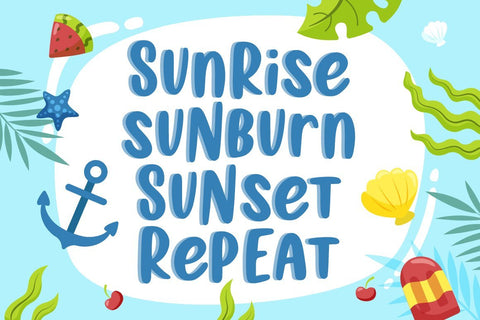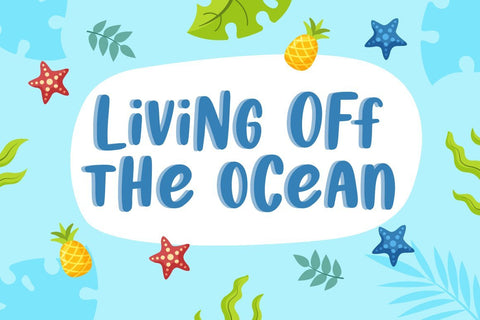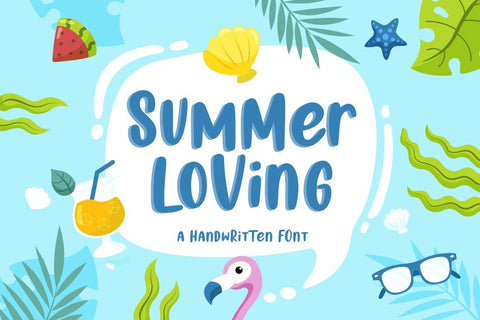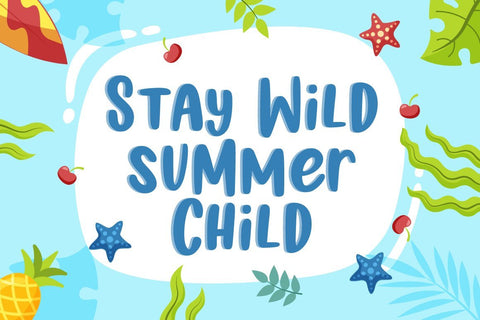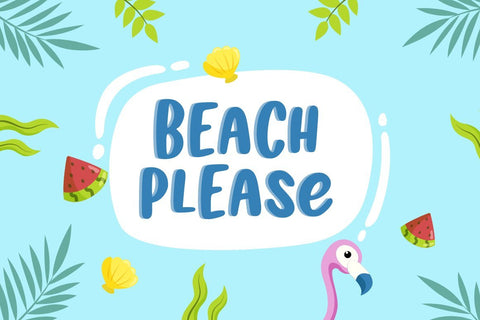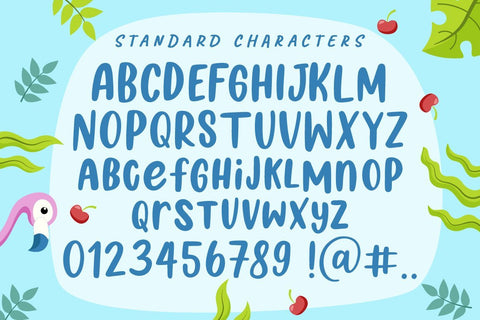
Summer Loving | a Handwritten Font
Introducing
Say hello to 'Summer Loving' - a fun handwritten font, immediately add to your font collection. Play with upper and lower case for a fun different look!
Summer Loving font looks perfect for branding, websites, quotes, handwritten notes, digital planning, greeting cards, and much more!
Multilingual support:
ÁÂÄÀÅÃÆÇÉÊËÈÍÎÏÌÑÓÔÖÒØÕŒŠÚÛÜÙÝŸŽ
àáâãäåæçèéêëìíîïñòóôõöøœùúûüýÿšž